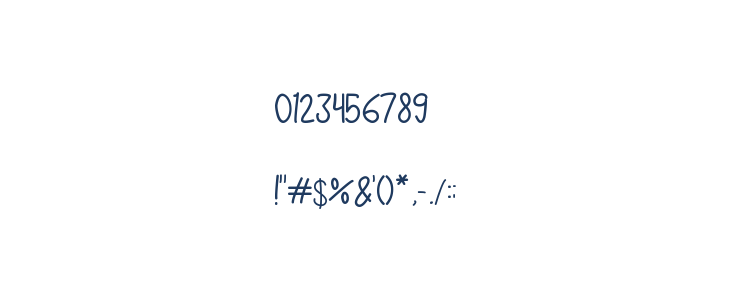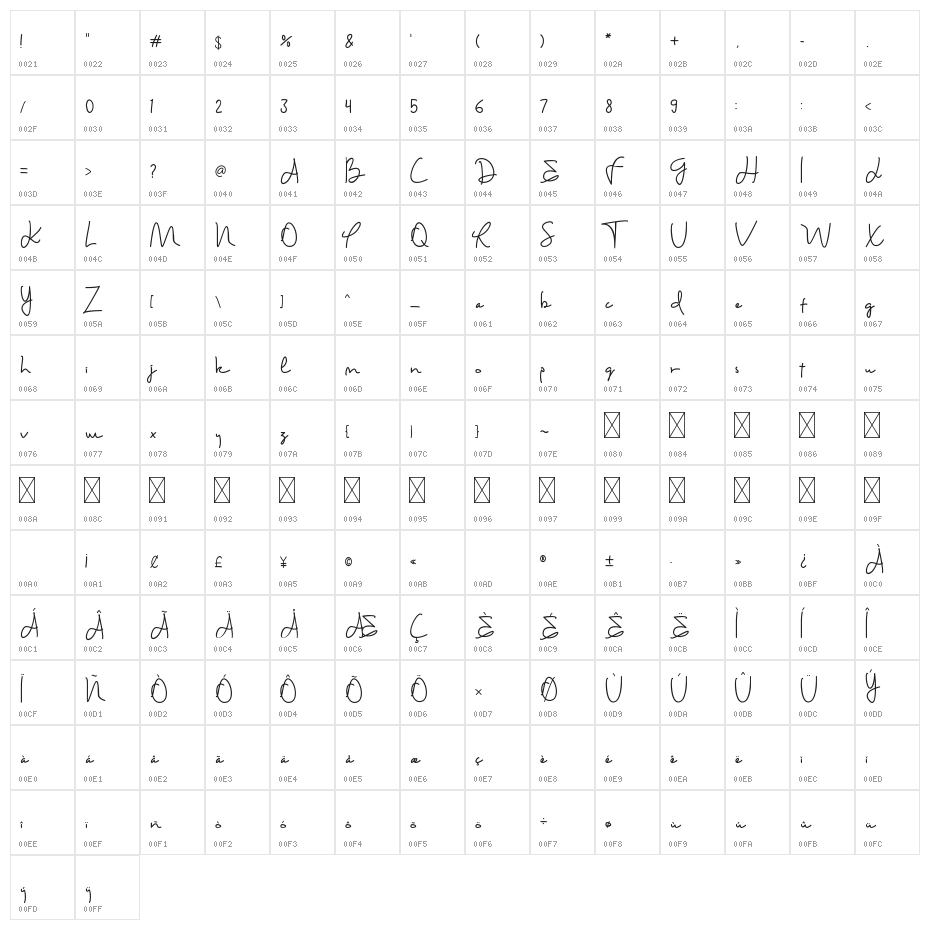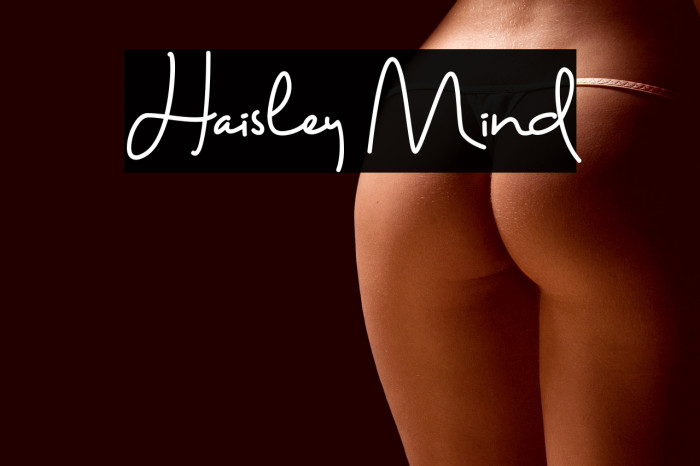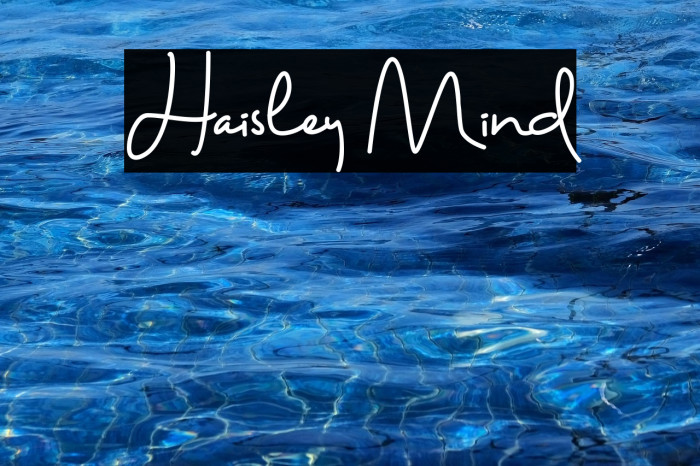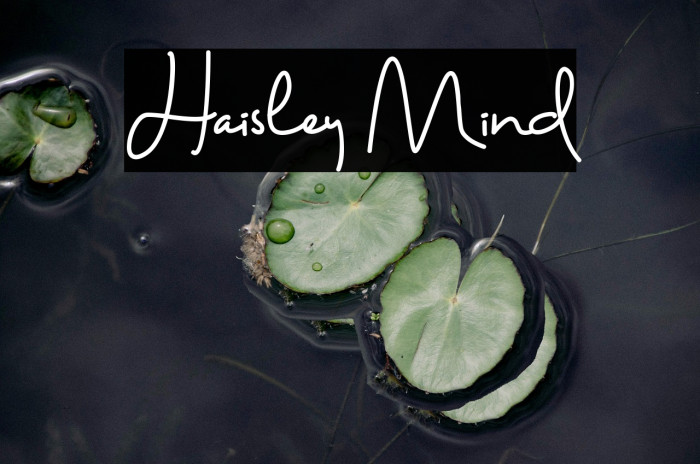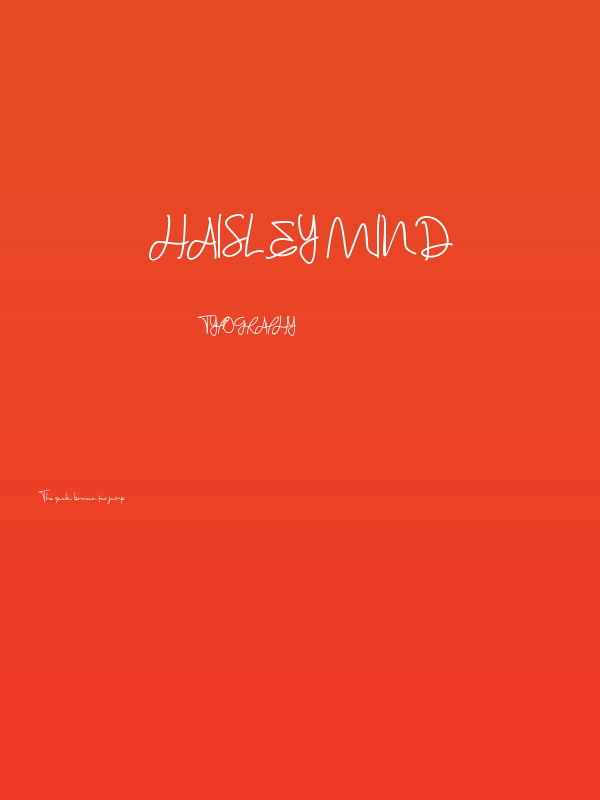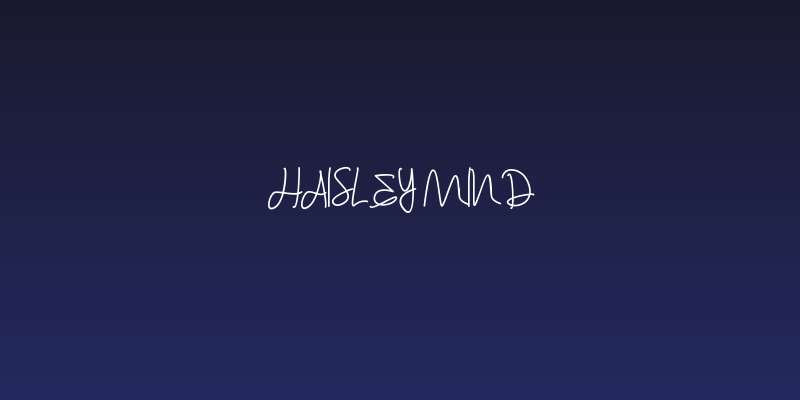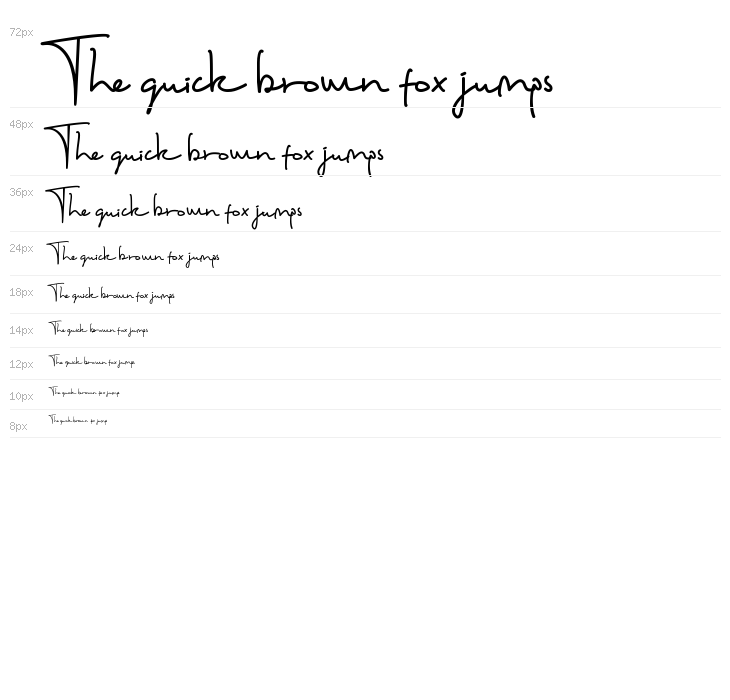
Haisley Mind Font
Haisley Mind Description
This font features a playful and whimsical handwritten style, characterized by its fluid and dynamic strokes. The uppercase letters exhibit a sense of movement and energy, with varying line thickness that adds to its casual and informal appearance. The lowercase letters maintain a consistent flow, complementing the uppercase with a slightly more restrained yet equally lively design. The numerals and special characters follow the same playful aesthetic, making them suitable for creative and informal applications. Overall, this font exudes a sense of spontaneity and creativity, making it ideal for projects that require a personal and approachable touch.
| Overall Style | Casual and playful |
| Proposed Projects | Ideal for greeting cards, invitations, personal branding, and creative projects that require a personal touch. |